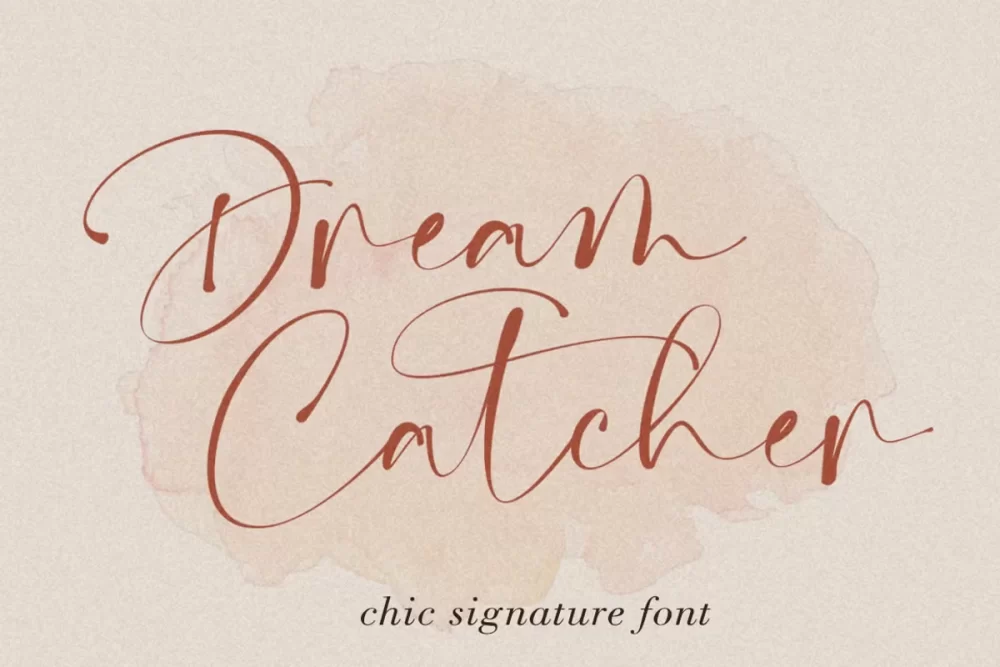
Dream Catcher is a modern chic signature font with a delicate, hand-lettered charm. Designed to mimic natural handwriting, it’s perfect for signature logos, photography watermarks, wedding invitations, and elegant branding projects.
This font includes a full set of beautifully crafted uppercase and lowercase letters, numerals, punctuation, and a wide range of ligatures, ensuring an authentic, handwritten aesthetic.